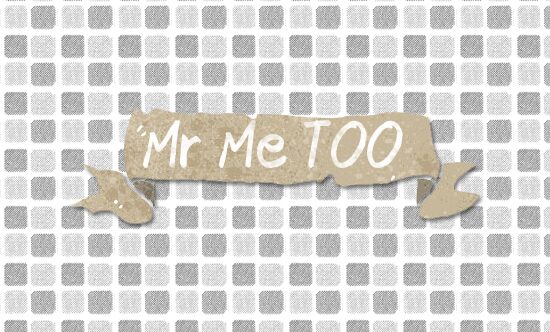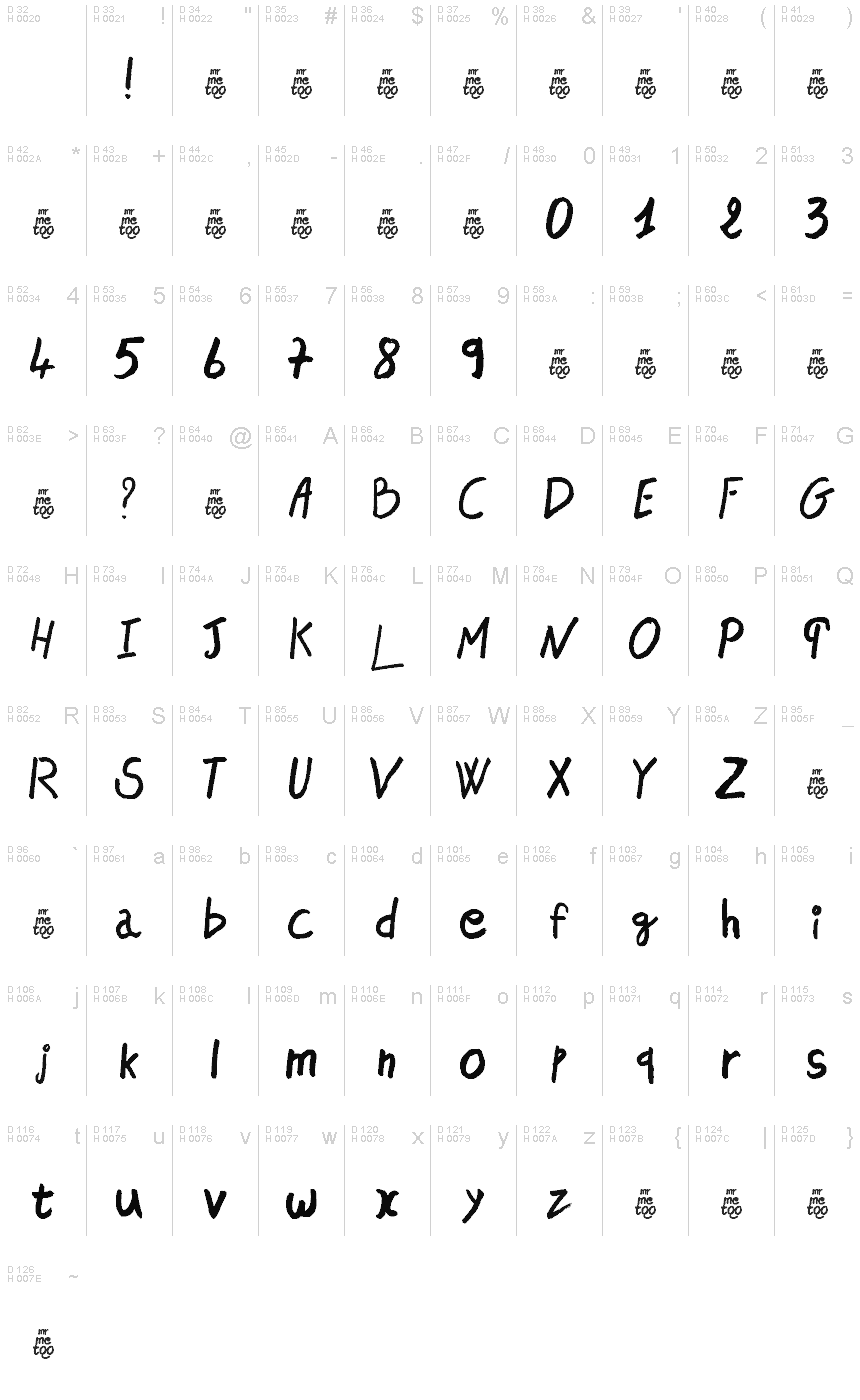
mr me too
Mr Me Too, a captivating brush-style font crafted by Mahdi Salah, exudes a bold, expressive flair. Its dynamic strokes and organic movement evoke a sense of spontaneity and energy, making it a standout choice for projects seeking a distinctive, handcrafted aesthetic.
This versatile font shines in a variety of design contexts, from eye-catching branding and packaging to impactful editorial layouts and attention-grabbing headlines. Its expressive qualities lend themselves seamlessly to creative endeavors, whether it's bringing a personal touch to artisanal products or adding visual interest to modern, minimalist designs.